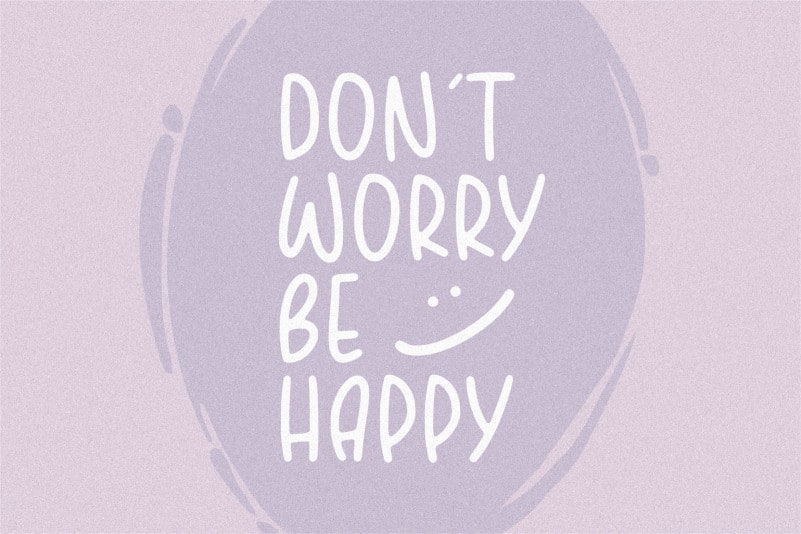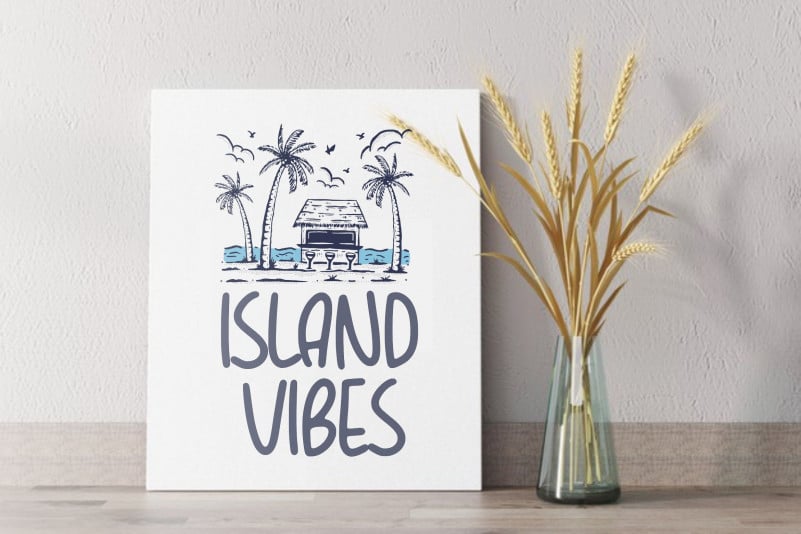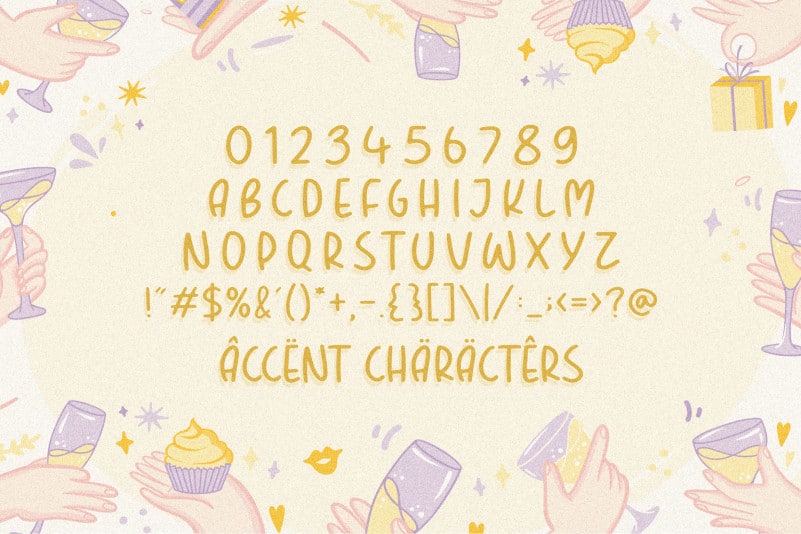
BOUNTIES Handbrushed Font
Proudly Present, BOUNTIES Handbrushed Font.
BOUNTIES is a Fun & Rounded Handbrushed Font.
BOUNTIES Handbrushed Font is perfect for product packaging, branding project, megazine, social media, wedding, or just used to express words above the background.